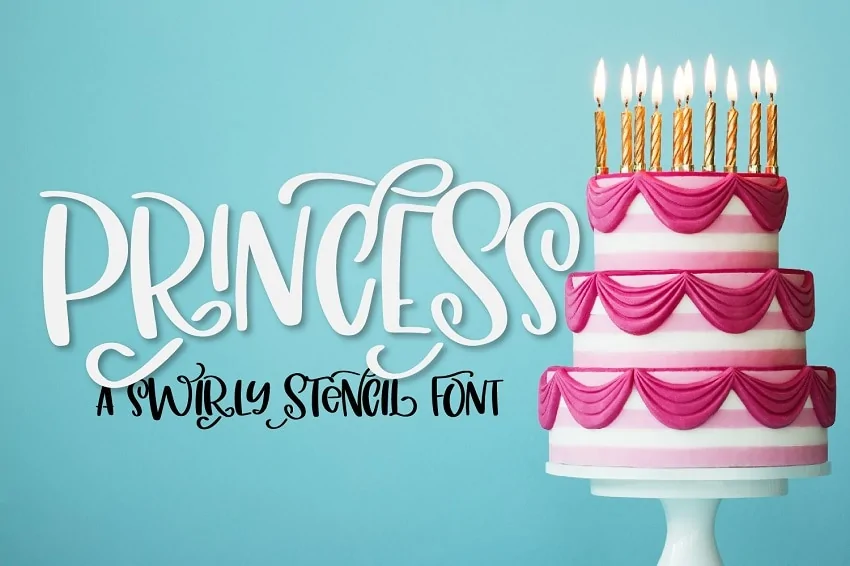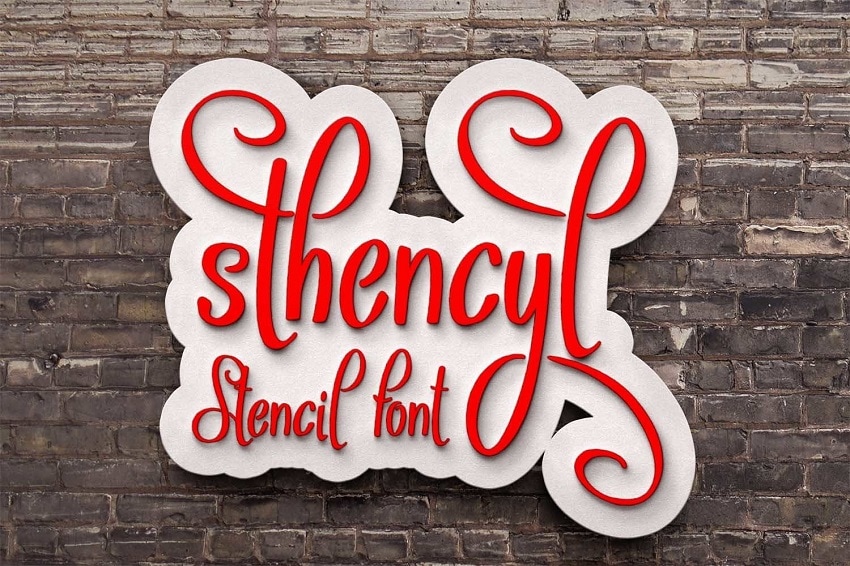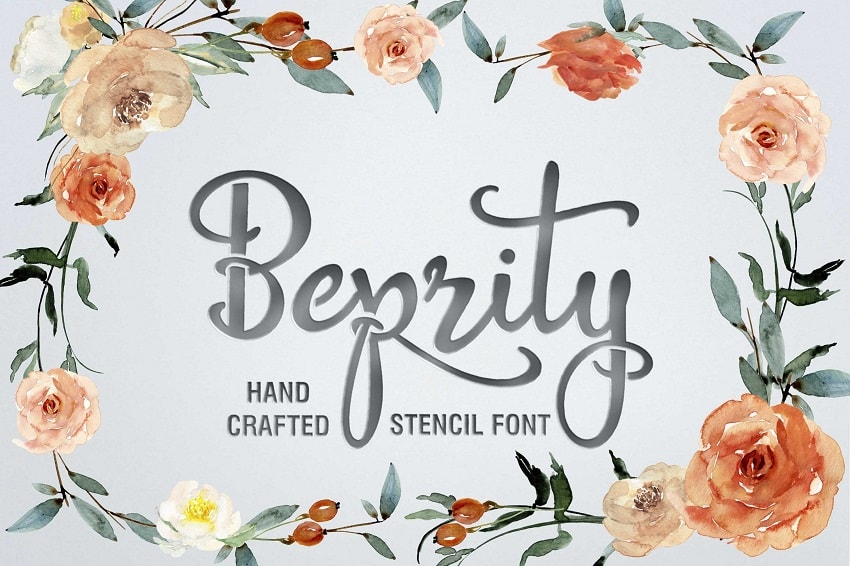
Are you looking for the best stencil fonts for Cricut? You’ll become a pro at stenciling using these stunning stencil fonts.
For the longest time, I was intimidated by stencil projects. But now, I create stencils effortlessly using my go-to list of favorite stencil fonts for Cricut.
You’ll love how easy it is to give any space in your home a makeover with stencils. Painting wood signs, walls, furniture, or gift boxes with names and quotes will become your expertise with these failproof fonts.
Say no to tedious vinyl weeding or extra work in Cricut Design Space; use these stencil fonts to get flawless results every single time.
Best Stencil Fonts For Cricut
1. The Tingler
Best Overall Stencil Font for Cricut
Make the most exquisite designs with The Tingler font duo. This gorgeous font combination is a stencil lover’s dream come true.
Use cursive fonts to create home decorations like wood signs and wall art. Or use them to make personalized crafts for friends and family.
2. Stencil Army
Best Army Stencil Font for Cricut
You’ll love the Stencil Army font if you want to make military-inspired stencils. The font is pretty much perfect for creating signs for all sports and outdoor activities.
3. Bigdey
Best Script Stencil Font for Cricut
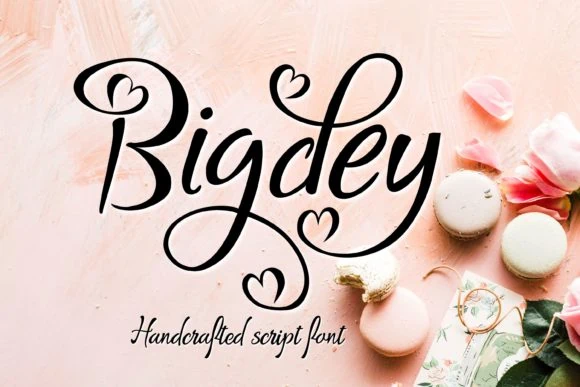
Bigdey is a beautiful stencil font that will steal your heart. You’ll love using this font for personalization and creating stunning quotes. Make lovely decor and gifts for birthdays, Valentine’s Day, Mother’s Day, Christmas, and other special occasions.
4. Off War
Best Military Stencil Font for Cricut
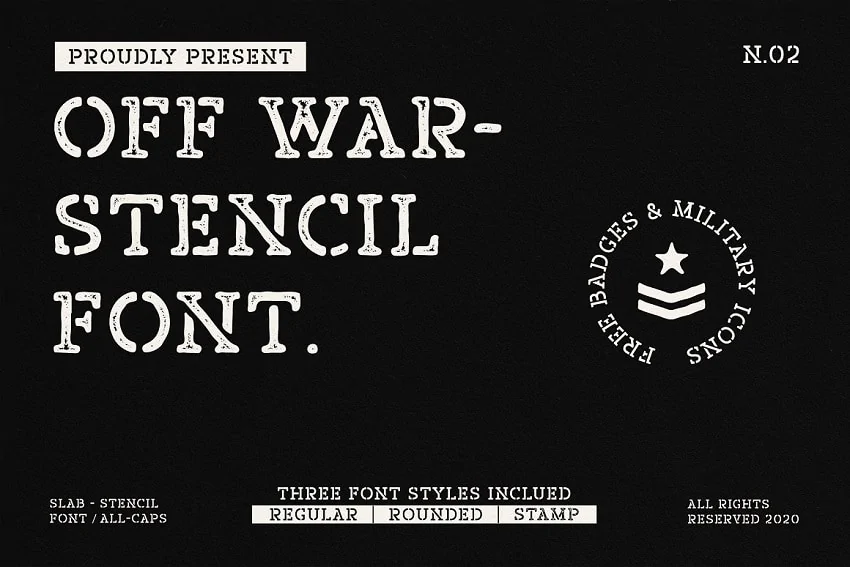
Another favorite military-style stencil font for Cricut is Off War. This font will help you create rugged designs for signs, walls, boxes, and more.
5. Beprity
Best Handwritten Stencil Font
Add a whimsical touch to your stencil projects with the Beprity font. This pretty font features stunning script letters to create the most awe-inspiring crafts for home decor, weddings, and the festive season.
6. Wargate
Best Stencil Font for Sports
You’ll love using the Wargate stencil font family to create versatile designs. Perfect for making wall art with inspirational quotes for your office or gym room. With this font, all sports, adventure, and games-themed crafts also turn out amazing.
7. Sukima
Best Sans Stencil Font for Cricut
Create stunning modern designs using the Sukima font. The Sukima font’s minimal look makes it a fantastic choice for creating word stencils that are super easy to read. This font is perfect for making stencils with instructions or any long form of text.
8. Sthencyl
Best Stylish Stencil Font for Cricut
Sthencyl is a beautiful stencil font with curly swashes. You’ll be able to easily add a unique touch to all your stencil projects, like signs, walls, furniture, and doormats, with this font.
9. Yosemite
Best Rustic Stencil Font
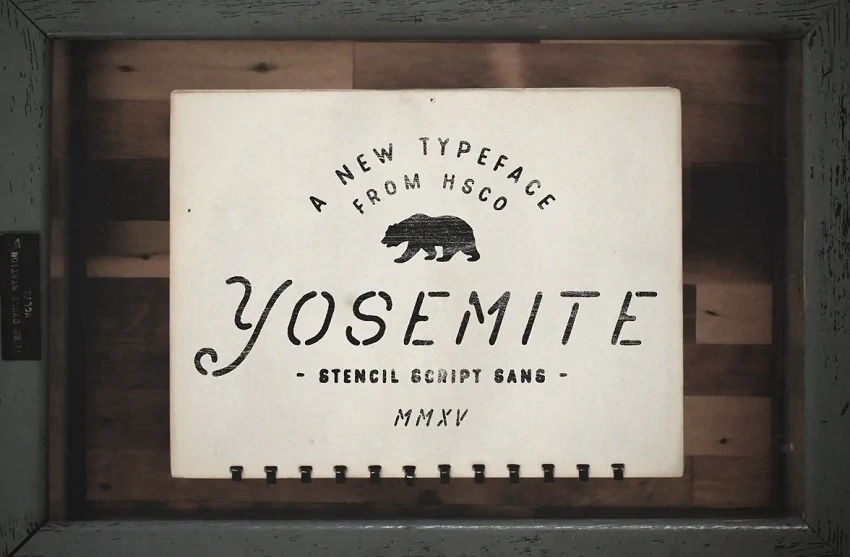
Yosemite is my favorite rustic stencil font to use with your Cricut. You’ll love creating farmhouse-style signs for your home with this font. Also great for Christmas, camping, and adventure crafts.
10. Sykenga
Best Handwritten Stencil Font for Cricut
Sykenga is a handwritten stencil font that helps you create quirky designs. Make unique doormats and signs with funny quotes that everyone will obsess over.
11. Pegro
Best Serif Stencil Font
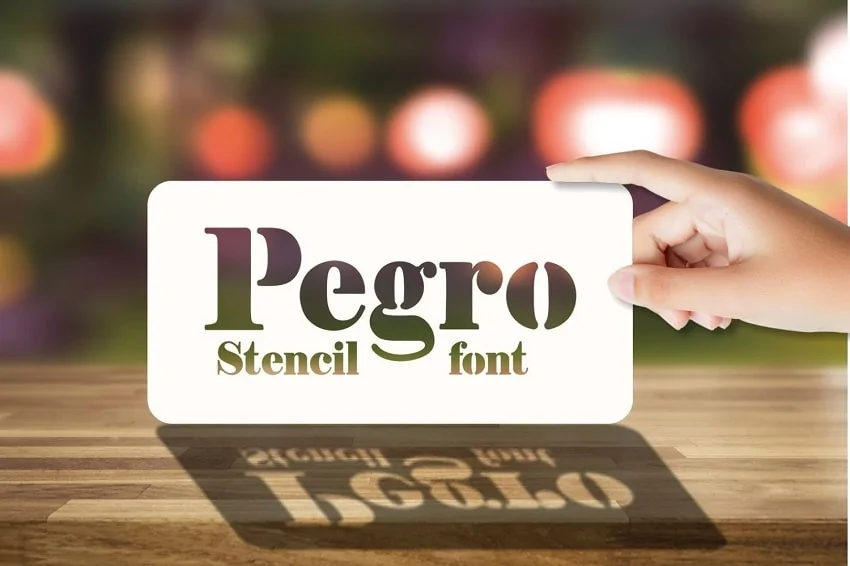
You’ll love using the Pegro font to create bold and stylish designs. I am obsessed with the elegant look this font adds to my crafts. The farmhouse-style decor turns out amazing with the font.
12. Balton Stencil
Best Cricut Stencil Font for Personalization
Make jaw-dropping designs with the Balton Stencil font. You’ll love personalizing your kids’ names with this font to make door signs, toy boxes, doormats, wall art, and more.
13. Rhode
Best Retro Stencil Font
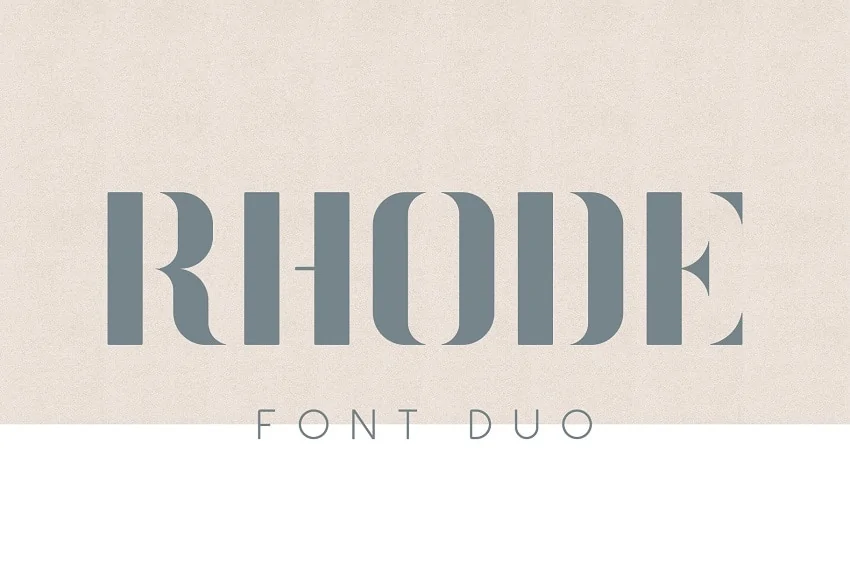
The Rhode font is my go-to stencil font for Cricut for making weddings, birthdays, and Christmas crafts. This retro-modern font adds elegance to every project I use it in. Create awe-inspiring wall art and wood signs with the font.
14. Lerum
Best Elegant Stencil Font for Cricut
The Lerum stencil font mixes elegance and playfulness effortlessly. I guarantee that, with this font, your Cricut stencil projects will turn into timeless art pieces. Perfect for adding charm to your home decor or making gifts.
15. Northash
Best Vintage Stencil Font
Do you want to create a vintage-style stencil? The Northash font has got you covered. The font is perfect for all your sports, camping, and adventure-themed stencils.
16. Leatherhand
19. Cozy Caps
Best Stencil Font for Back To School
Cozy Caps is a perfect stencil font for Cricut to create fun and bold designs. With this font, you can make super cute door signs for teachers’ and kids’ rooms.